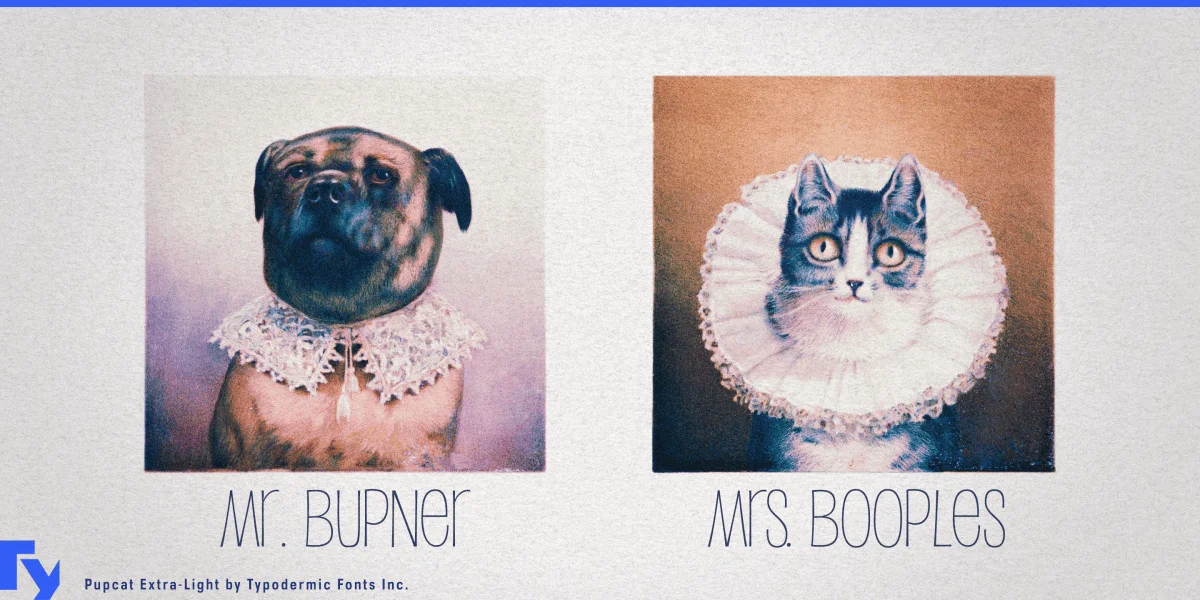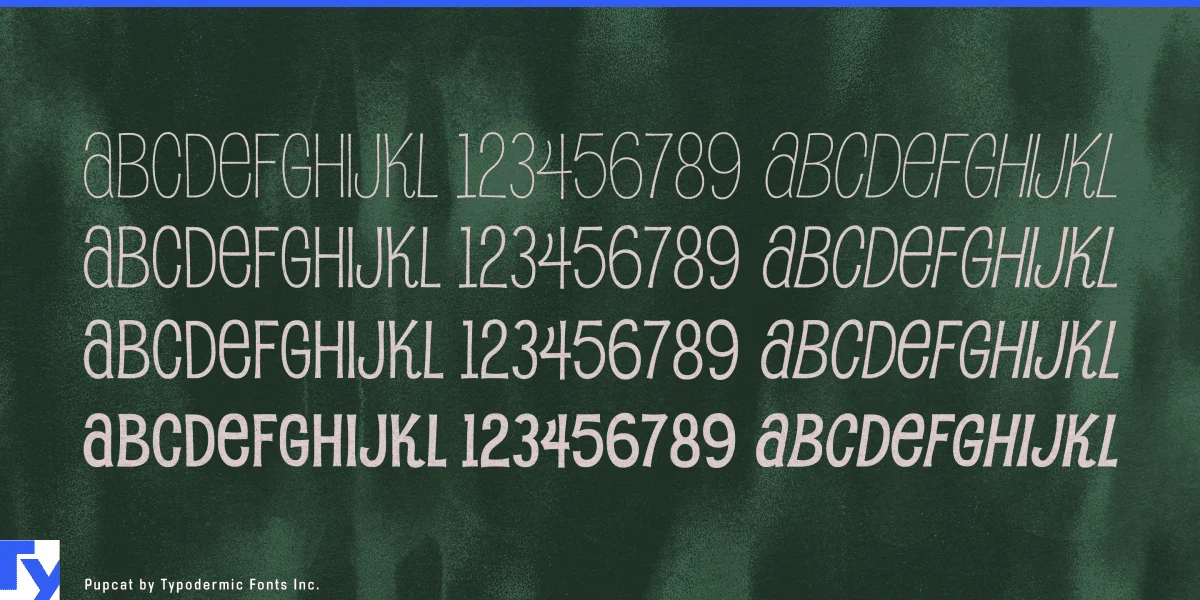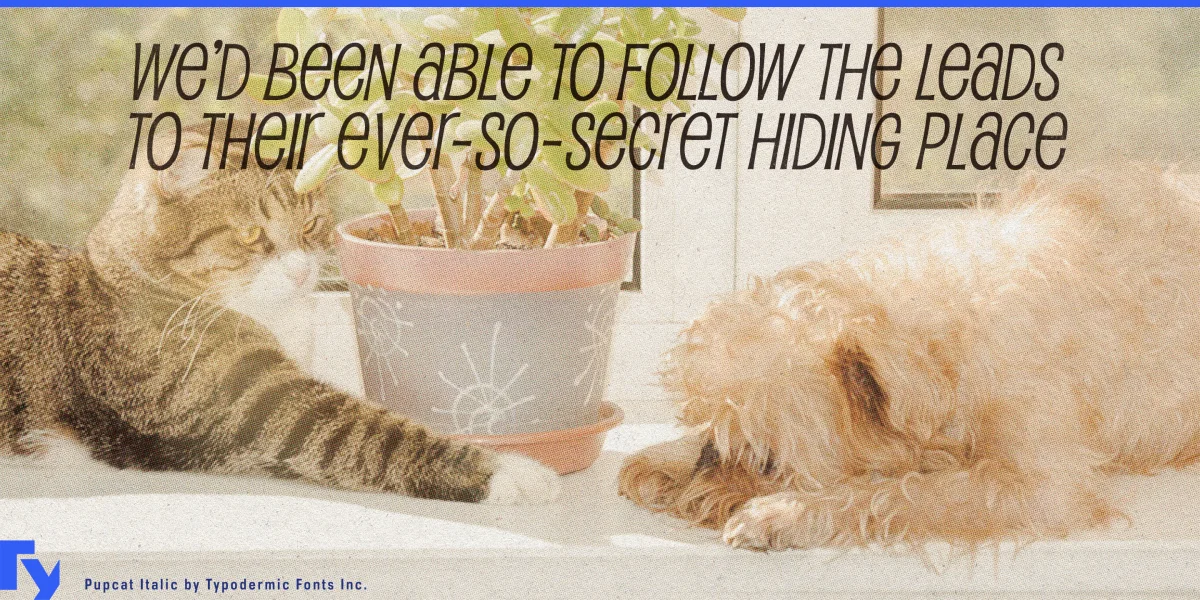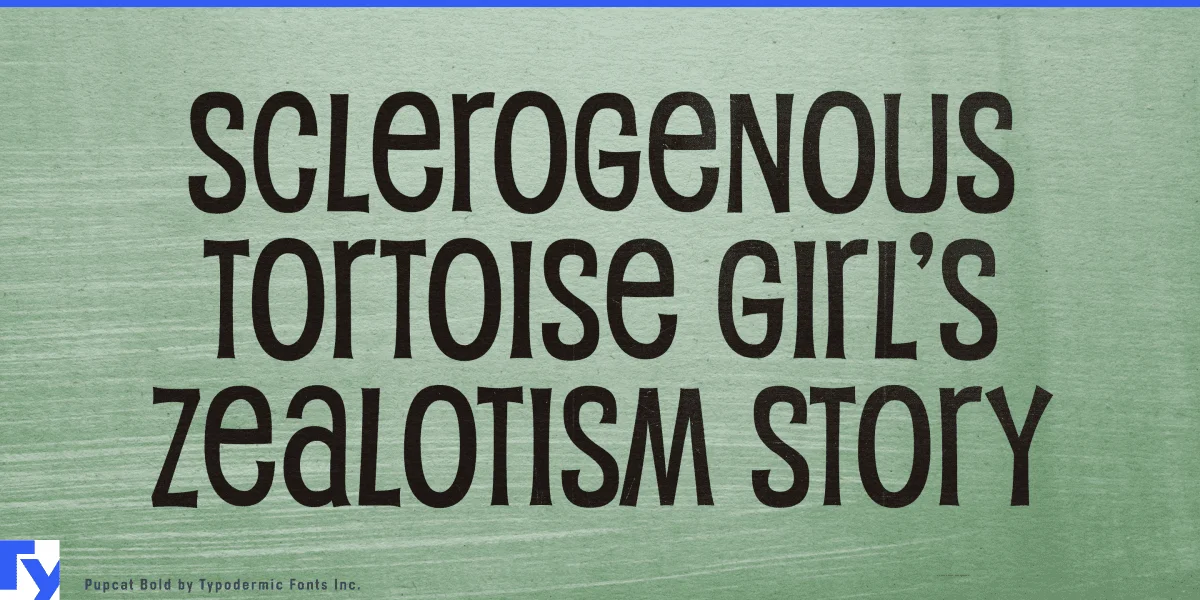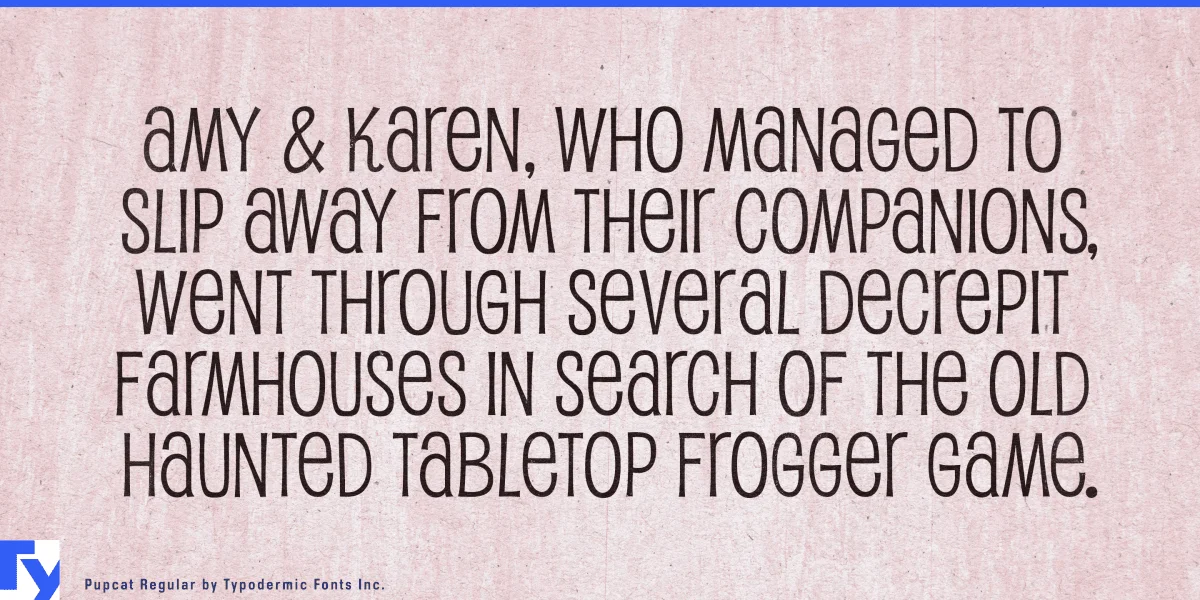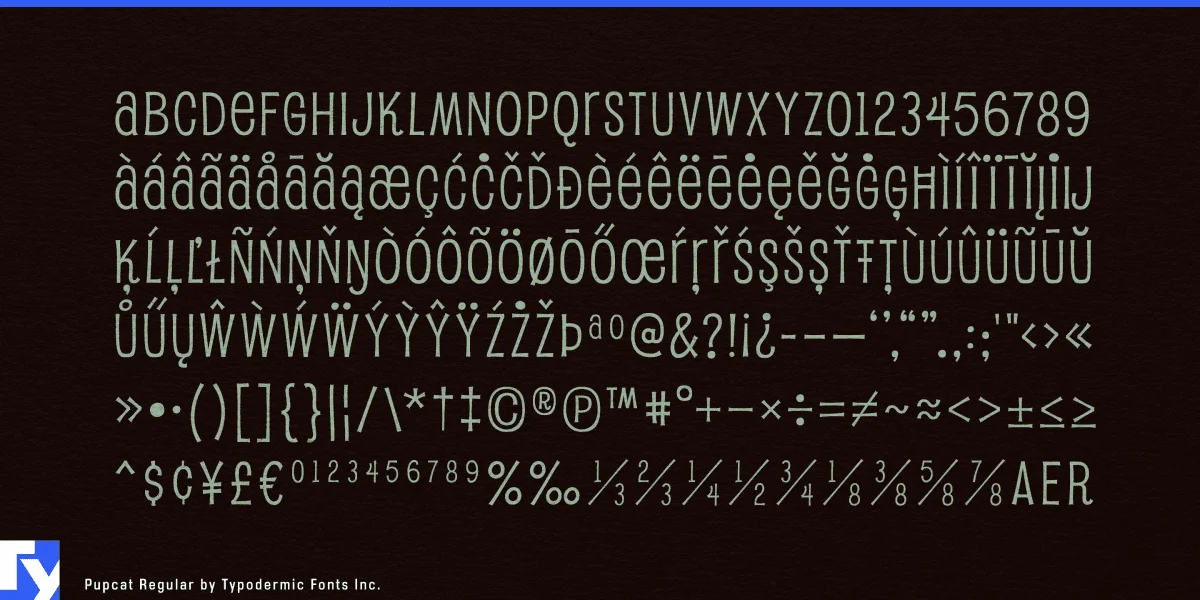
Ladies and gentlemen, meet Pupcat—the Doris Day of typefaces in a world full of plain-Jane fonts. This is a ticket to a swingin’ soirée, where letters mingle with the carefree abandon of a 1960s beach party.
Picture this: You’re strolling down the Champs-Élysées, your latest copy of Vogue tucked under your arm, when suddenly—bam!—you’re struck by the most delightful movie poster. That, dear friends, is the Pupcat effect. Its unicase design is like a chic Parisian pixie cut—bold, unexpected, and utterly charming. Pupcat doesn’t just flirt with your eyeballs; it woos them with the suave sophistication of Cary Grant and the playful wink of Audrey Hepburn. Those flared strokes? They’re not just design elements—they’re the typographic equivalent of a perfectly arched eyebrow, adding just the right touch of drama to your designs.
With four weights and their italic counterparts, Pupcat gives you more mix-and-match options than a 1960s fashion boutique. Create a text hierarchy smoother than Dean Martin’s crooning, all while maintaining that je ne sais quoi that’ll have your audience saying, “Oh, darling, where did you find that fabulous font?” Pupcat isn’t just versatile; it’s a regular Jack-of-all-trades. Magazine spreads? It’ll make them pop like Andy Warhol’s latest exhibition. Movie posters? It’ll have them selling out faster than Beatles tickets. Branding projects? Honey, it’ll give your client more personality than a night out with the Rat Pack.
And let’s talk about language support. Pupcat is fluent in more tongues than a United Nations interpreter. From Afaan Oromo to Zuni, it’s ready to spread its charm across borders faster than you can say “international jet-setter.” So, dolls and gents, why settle for the typographic equivalent of elevator music when you can have a font that swings like Sinatra?
Pupcat is your leading character. It’s the meet-cute, the witty banter, and the happily-ever-after all rolled into one delightful package. So go ahead, give your designs their Hollywood ending with Pupcat. After all, in typography as in love, it’s not about following the rules—it’s about following your heart.